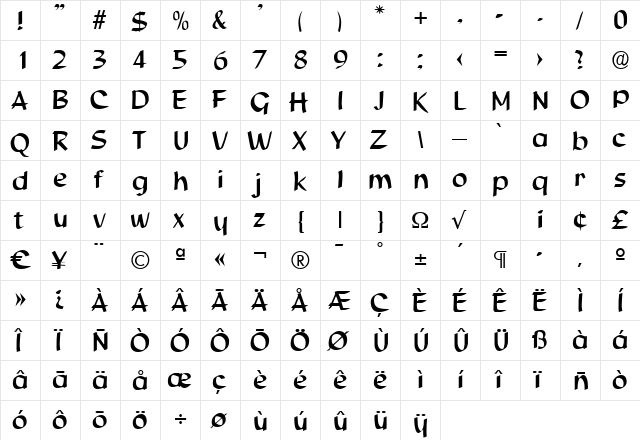
Script-S850 Regular
Design Context for Script-S850 Typeface
Script-S850 brings a calligraphic fluidity to the page — its connecting strokes and expressive curves give it an unmistakably human quality.
Font Pairing: Combine Script-S850 with a simple geometric sans for maximum contrast — the tension between flowing curves and clean structure is a classic typographic pairing.
Pro Tip: Pair Script-S850 with a clean sans-serif for supporting text. The contrast between fluid script and geometric structure creates an elegant typographic hierarchy.